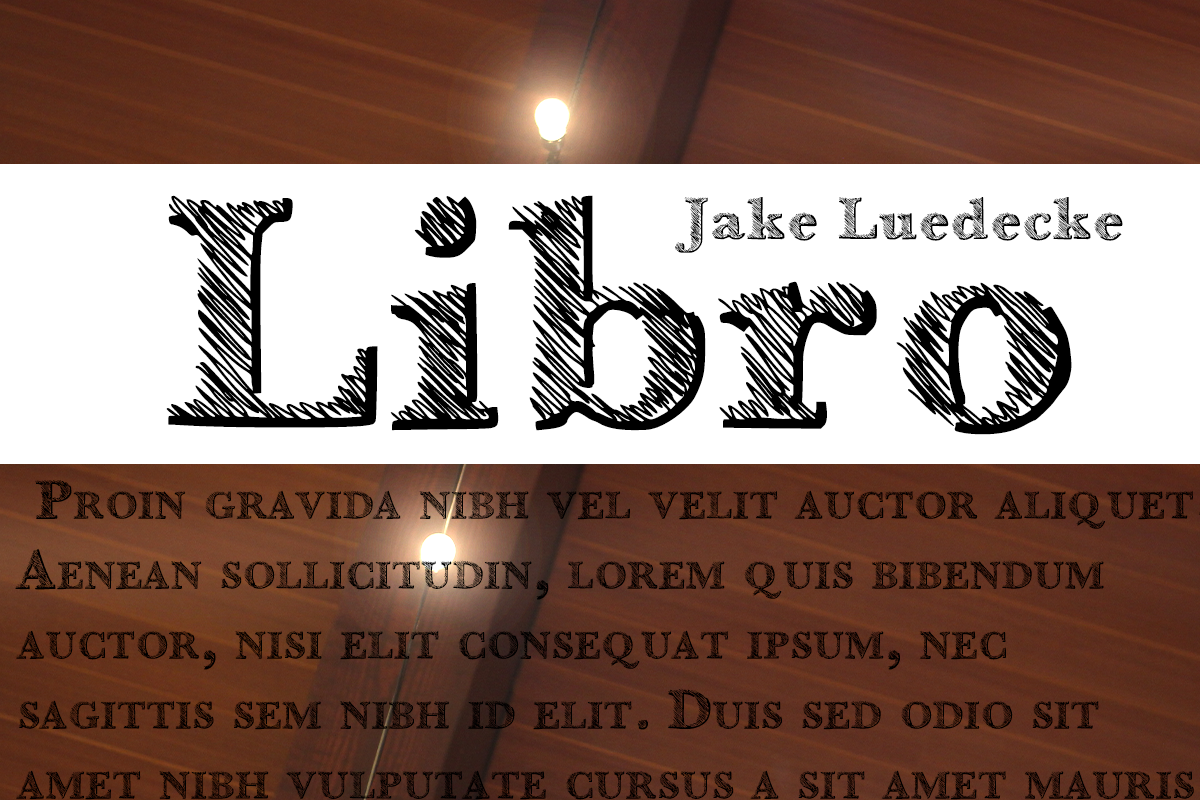
Libro
Libro by Fonts by Jake L is a font selected for branding, posters, packaging, typography.
Why Libro is worth a look
Libro by Fonts by Jake L fits naturally into Branding, posters, packaging, typography.